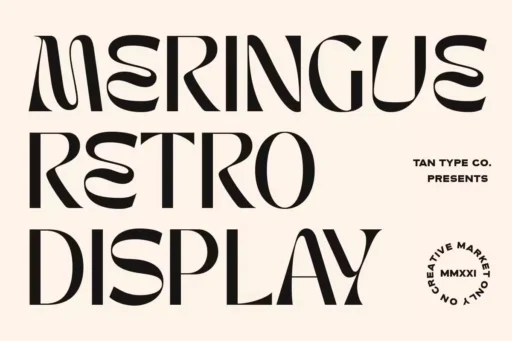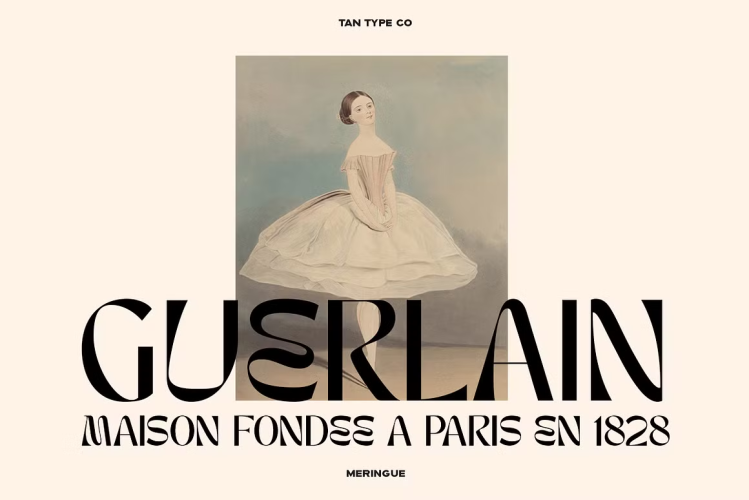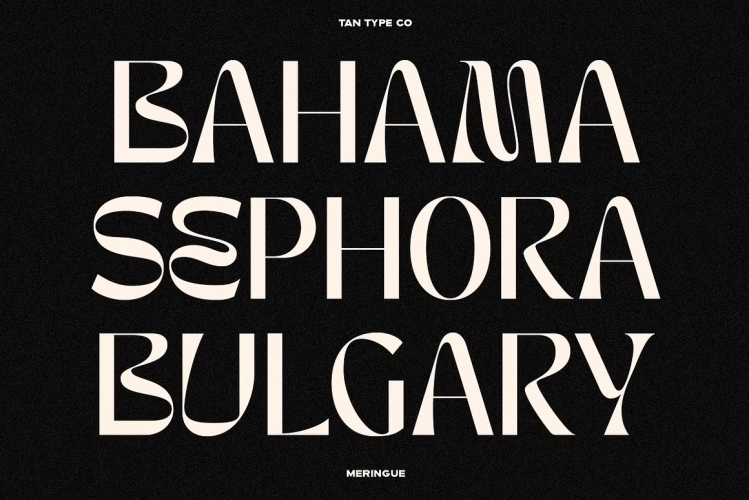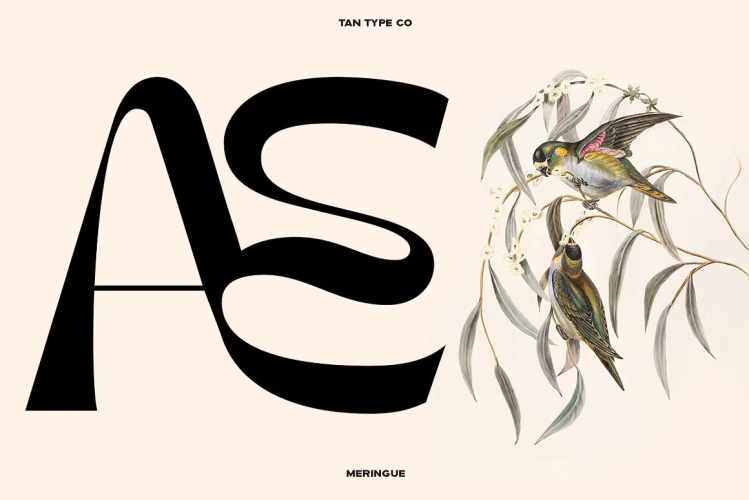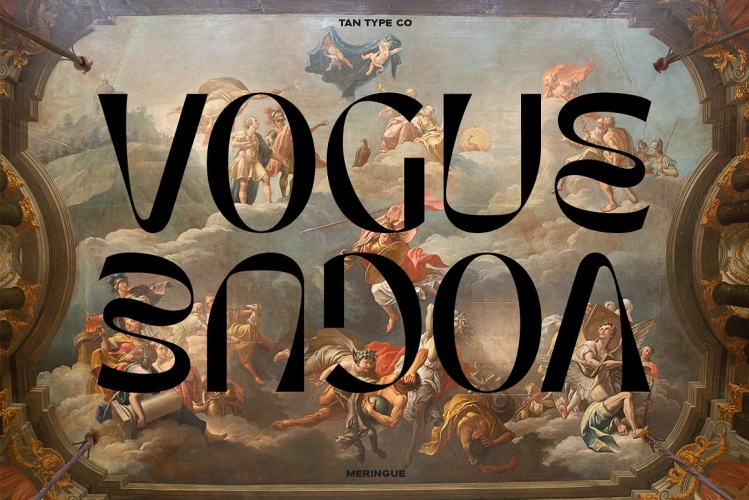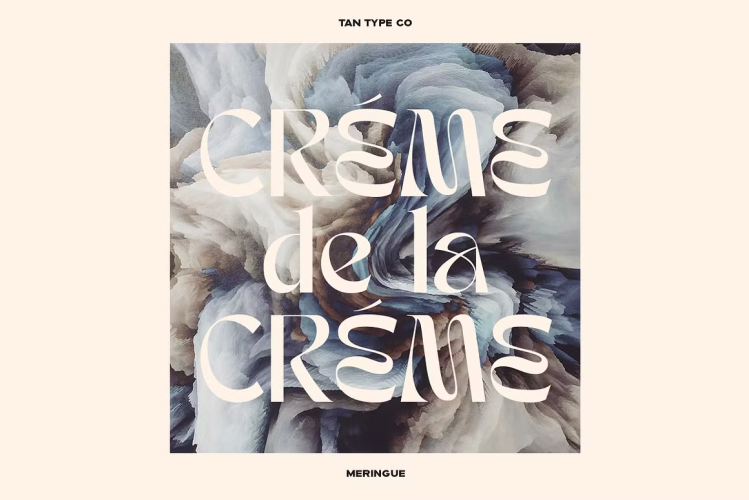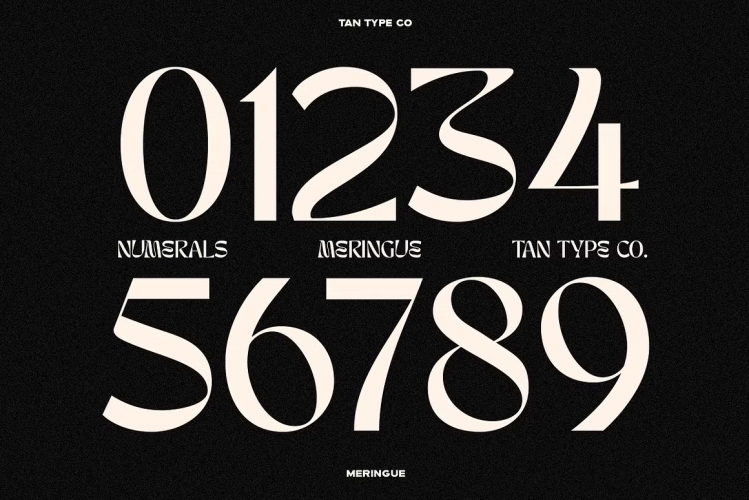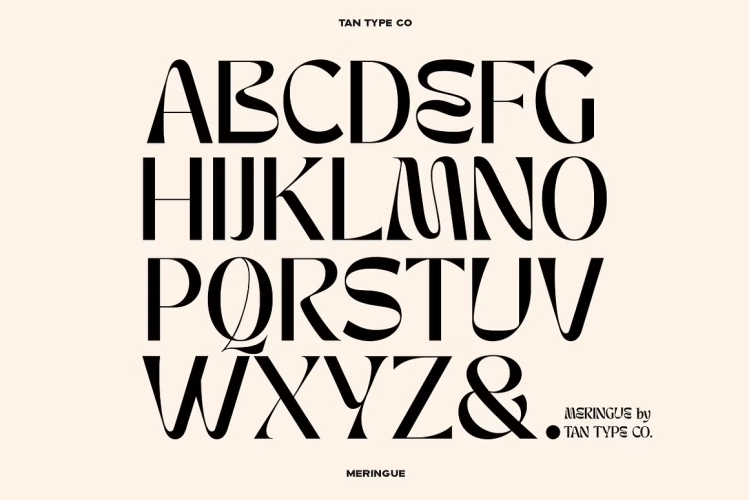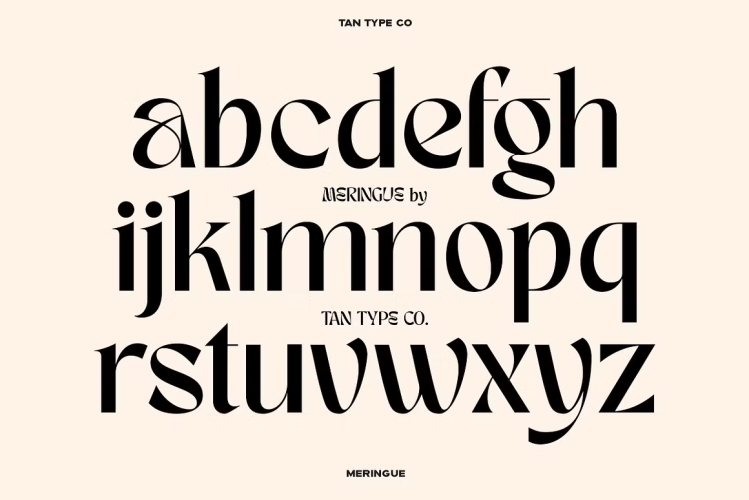
TAN MERINGUE Font
TAN MERINGUE is a friendly and classy display font with a personality that showcases its English-engraved curves and retro appeal. Be it posters, signage, or branding material, TAN MERINGUE is your true crème de la crème if you need your projects endowed with character and a charm of nostalgia. Use this charming typeface to elevate your work and help you garner your audience’s attention just like it did in old times.
The font looks pretty diverse and fits your different projects. Nowadays, whether you’re designing the packaging for a hip new product or need to transform a classical brand, this font adapts effortlessly to your creative vision. Our brand’s playful, child-like spirit provides immediate drive and cheerfulness to every utterance, making people feel like family and best friends come together in times of happiness.
However, we have moved beyond appearances: The font provides a simple yet powerful solution to a growing problem. With its clear lines and legible letterforms, this font remains readable in all replication instances—such as smartphones, printouts, and more. If you are concerned about a website, magazine layout, or social media graphics, you can bank on TAN MERINGUE to give you the most impressive graphics.
It became a unique mark of creativity and individuality in an unimaginable and nondescript world where typefaces can be pretty sterile. Embrace its retro vibe, activate your imagination, and see how your designs transform into masterpieces compared to what you had in mind. The range is full of ideas, and you will not get bored. Therefore, the trip is just the beginning.
TAN MERINGUE Font is a Display Fonts font that brings a professional and versatile look to your projects. TAN MERINGUE is a friendly and classy display font with a personality that showcases its English-engraved curves and retro appeal.